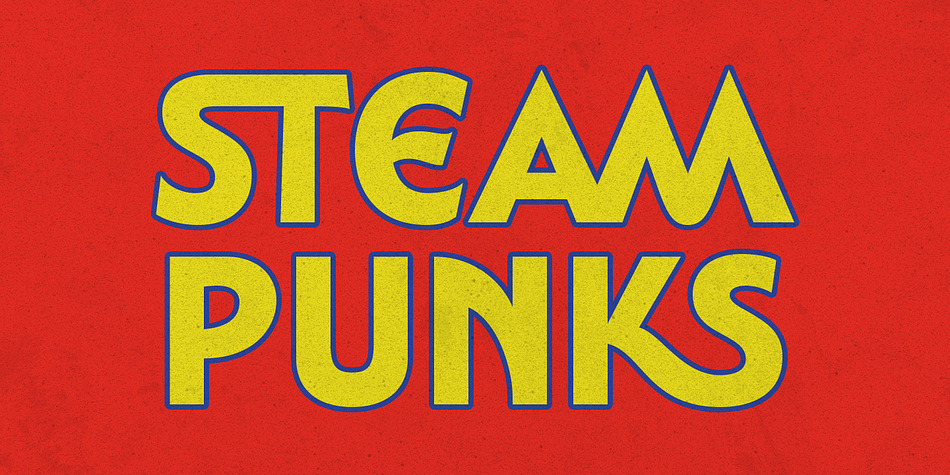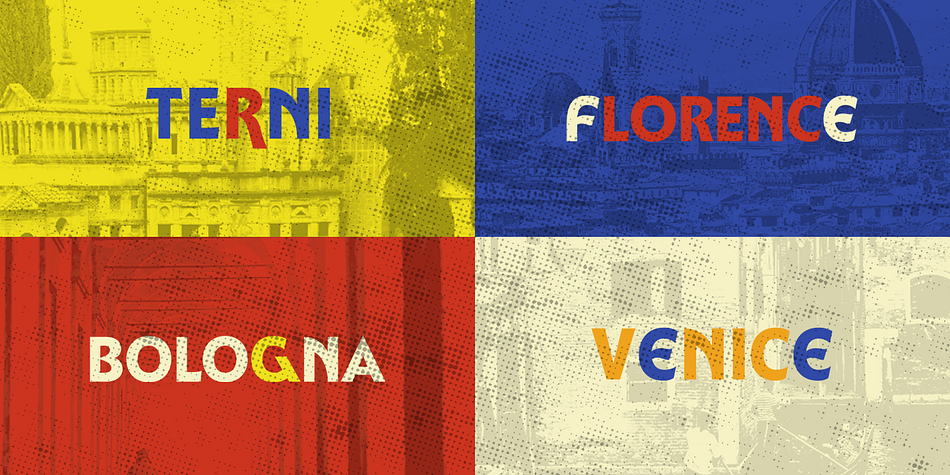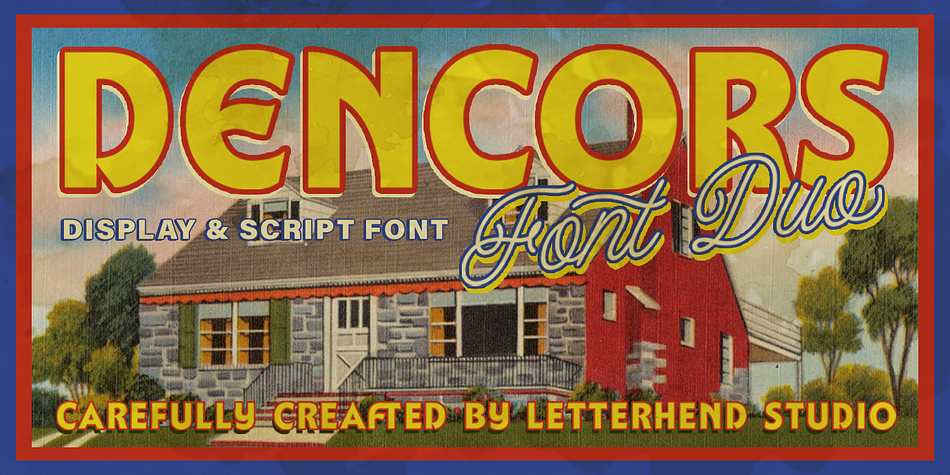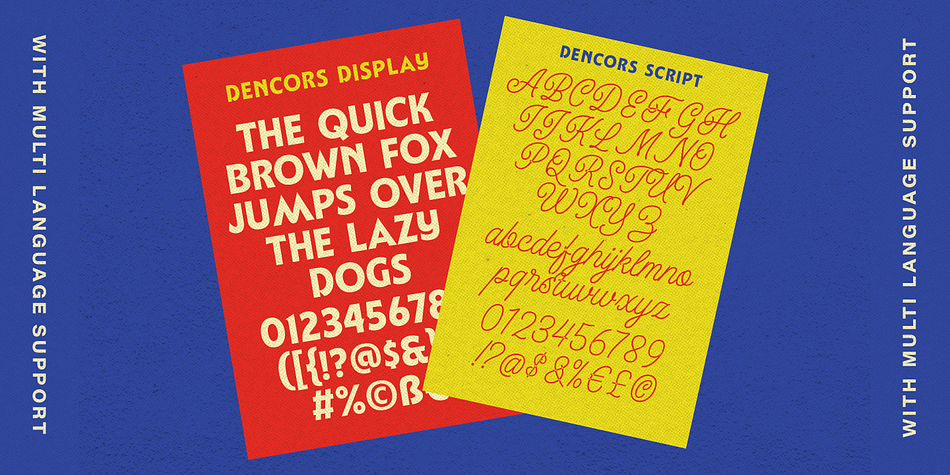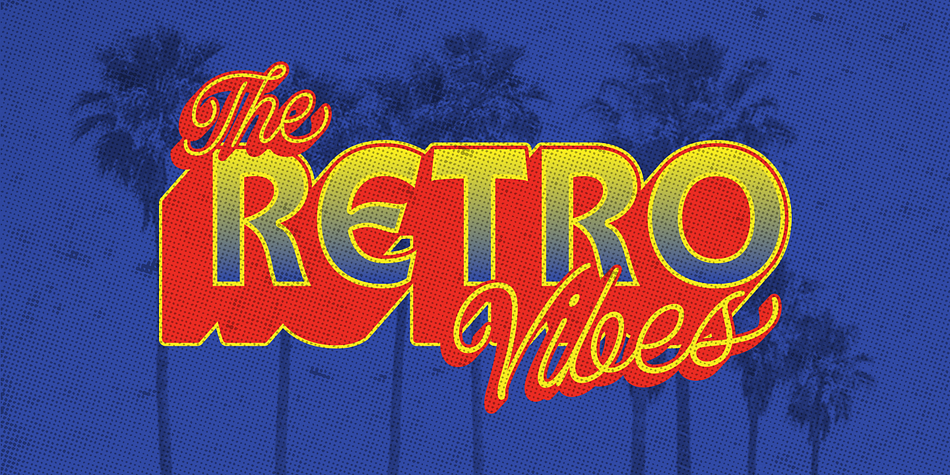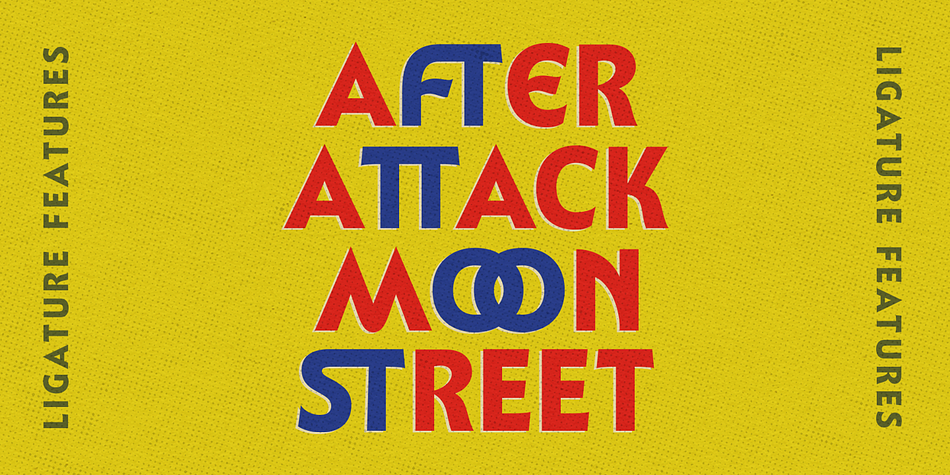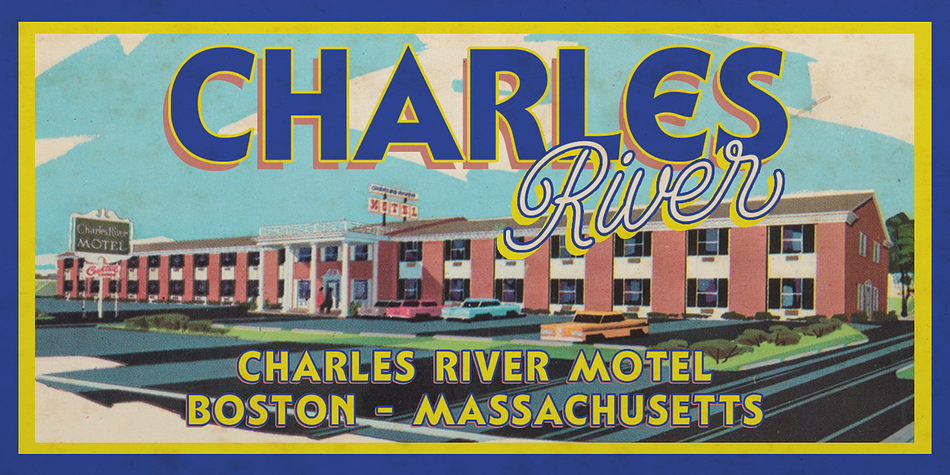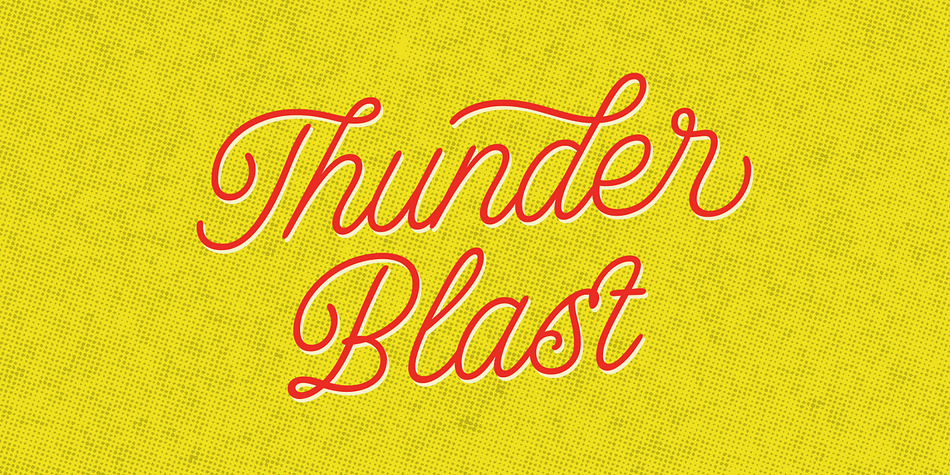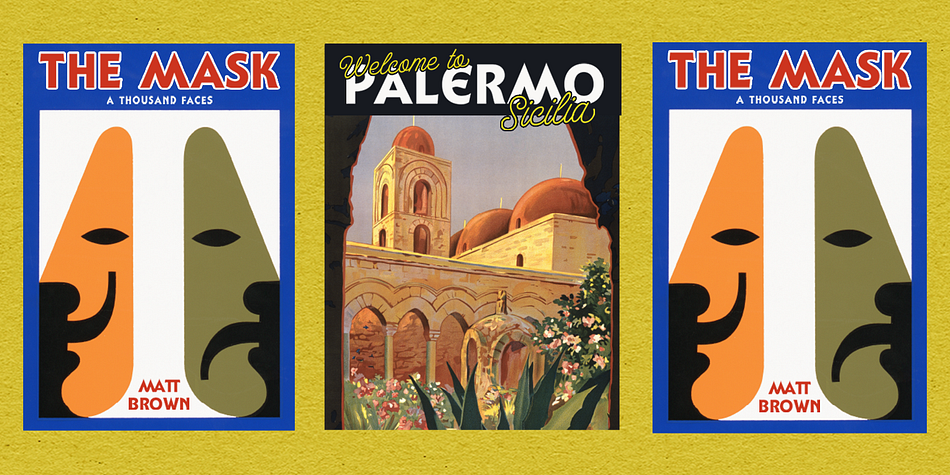
DENCORS
Designed by Hendry Juanda, Dencors is a retro and script font family. This typeface has two styles and was published by Letterhend Studio.
Relive the golden era of art with the timeless charm of Dencors- A new font duo with classy script and classic display sans. With vintage feel, inspired by 60s and 70s signages. This font perfectly made to be applied especially in logo, and the other various formal forms such as invitations, labels, logos, magazines, books, greeting / wedding cards, packaging, fashion, make up, stationery, novels, labels or any type of advertising purpose.
- Alternates & Ligatures
- Multilingual Support